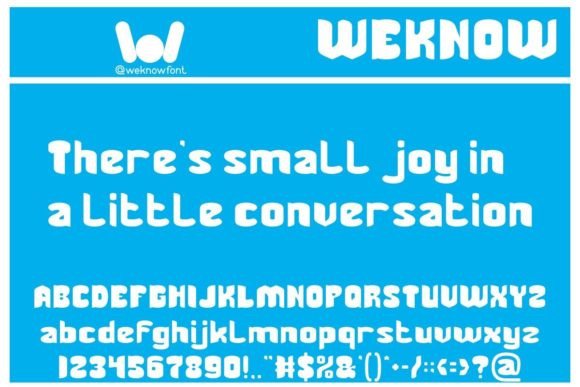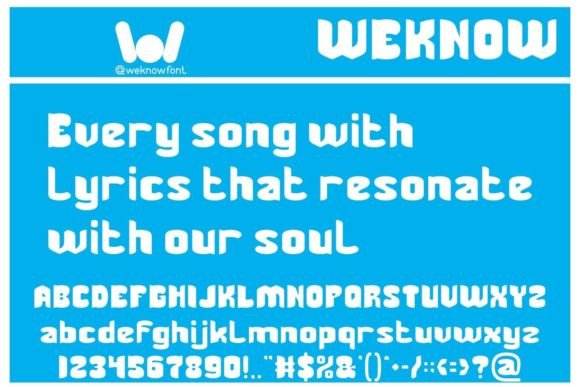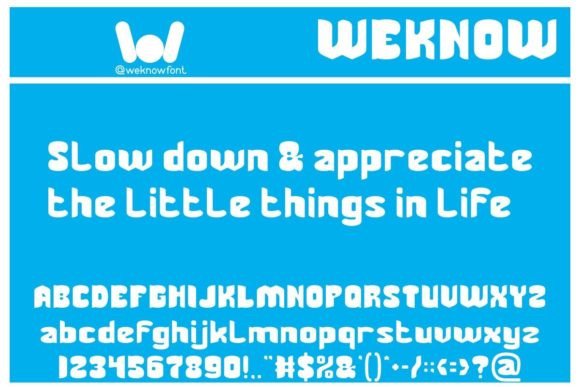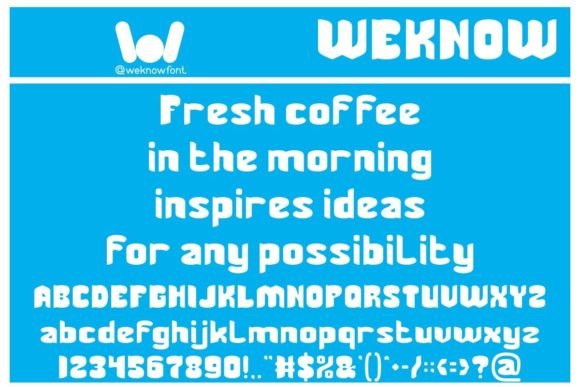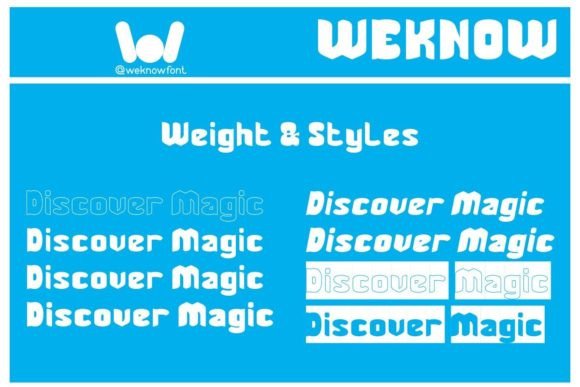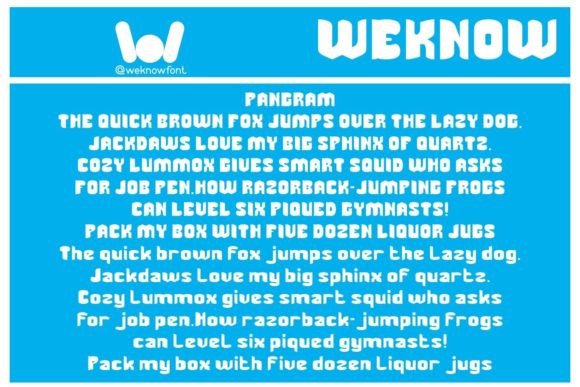
Discover Magic Font: Adding a Touch of Whimsy to Your Designs
Are you tired of using the same old fonts in your designs? Look no further than Discover Magic, a charming display font that is sure to bring a touch of enchantment to your creative projects. With its playful dynamism and organic charm, this font is perfect for designers and crafters looking to add a unique and eye-catching element to their work.
The Characteristics of Discover Magic Font
Discover Magic is a whimsically delightful font that radiates warmth and friendliness. Its playful and dynamic nature makes it perfect for use in a variety of design applications, from logos and headlines to corporate identities and editorial content. The font’s organic charm gives it a unique and handmade feel, making it stand out from more traditional and formal fonts.
One of the best things about Discover Magic is its versatility. This font can be used in a wide range of design applications, making it a valuable addition to any designer’s toolkit. Whether you’re working on a logo, a poster, a movie title sequence, or a website design, Discover Magic is sure to bring a touch of magic to your project.
Fashion and Editorial Design
In the fashion industry, Discover Magic can be used to add a touch of elegance and sophistication to brand logos and marketing materials. Its playful nature also makes it perfect for use in editorial design, such as in magazines and books. The font’s unique charm can help to add visual interest to text and make your content stand out.
Digital Spaces
In the realm of digital spaces, Discover Magic truly shines. Whether you’re designing a website, creating content for YouTube or Instagram, or crafting a bespoke web page design, this font is sure to add a touch of enchantment to your project. Its playful and dynamic nature makes it perfect for use in digital applications, such as video games, soundtracks, and electronic games.
Comic and Cartoon Design
Discover Magic is also a standout choice for comic and cartoon design. Its whimsical nature and organic charm make it perfect for use in comics, cartoons, and other illustrated designs. The font’s playful dynamism can help to bring your characters and stories to life, adding a touch of magic to your designs.
Why Choose Discover Magic Font?
So why choose Discover Magic font for your next design project? Here are just a few reasons why this font stands out:
- Unique and eye-catching: Discover Magic is a one-of-a-kind font that is sure to grab attention and add visual interest to your designs.
- Versatile: This font can be used in a wide range of design applications, making it a valuable addition to any designer’s toolkit.
- Playful and dynamic: Discover Magic has a playful and dynamic nature that makes it perfect for use in a variety of design applications.
- Organic charm: The font’s organic charm gives it a unique and handmade feel that sets it apart from more traditional and formal fonts.
In conclusion, Discover Magic font is a whimsically delightful display font that is sure to bring a touch of enchantment to your design projects. With its playful dynamism and organic charm, this font is perfect for designers and crafters looking to add a unique and eye-catching element to their work. Whether you’re working on a logo, a poster, a movie title sequence, or a website design, Discover Magic is sure to add a touch of magic to your project.